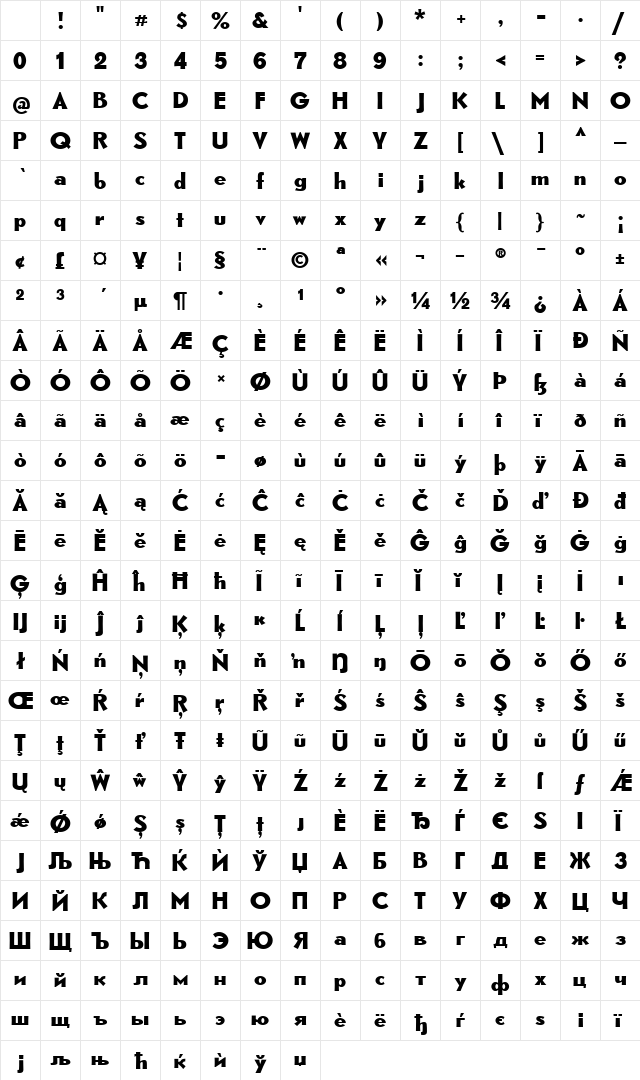
Complete CAT Rhythmus Regular glyph index. Displaying only characters natively supported by CAT Rhythmus Regular font.
CAT Rhythmus is a composed and adaptable typeface that performs quietly and consistently across a wide range of design contexts.
Who designed the CAT Rhythmus Regular font?
This font was published by Peter Wiegel. Check the technical specs section for copyright and designer details.